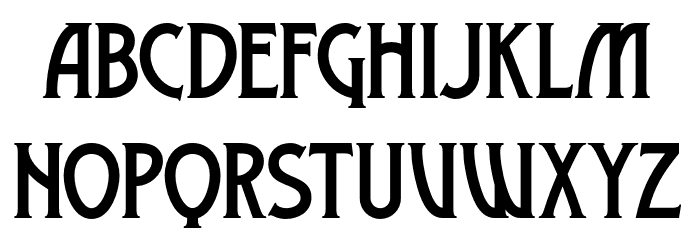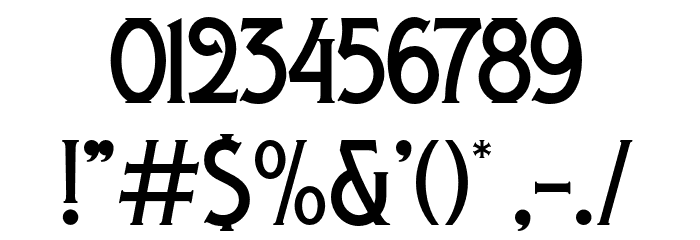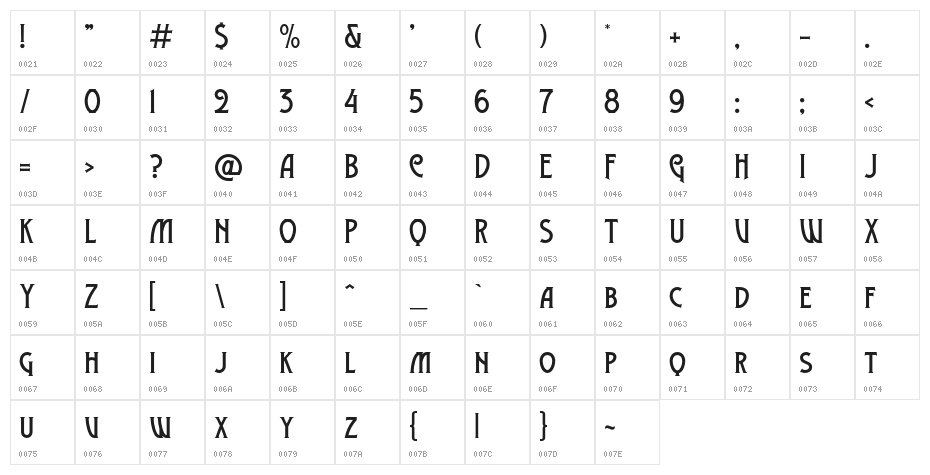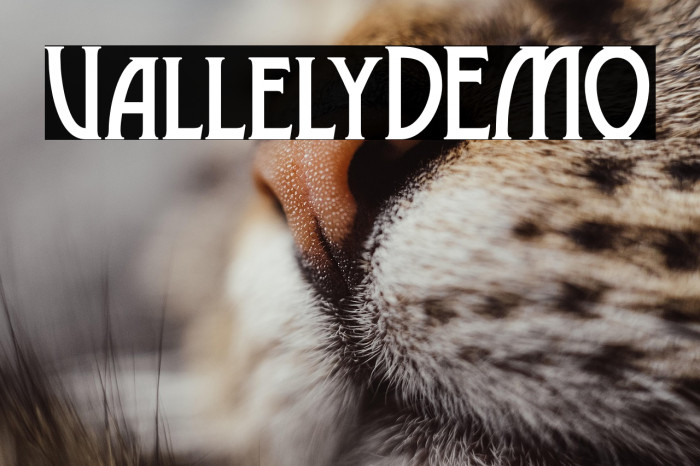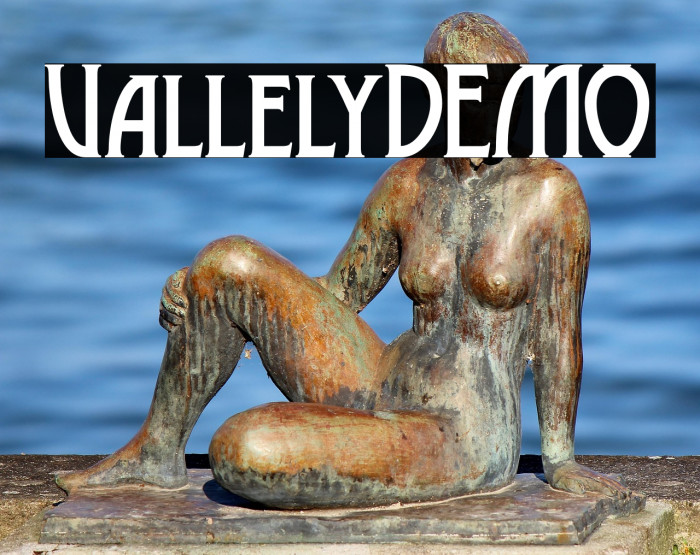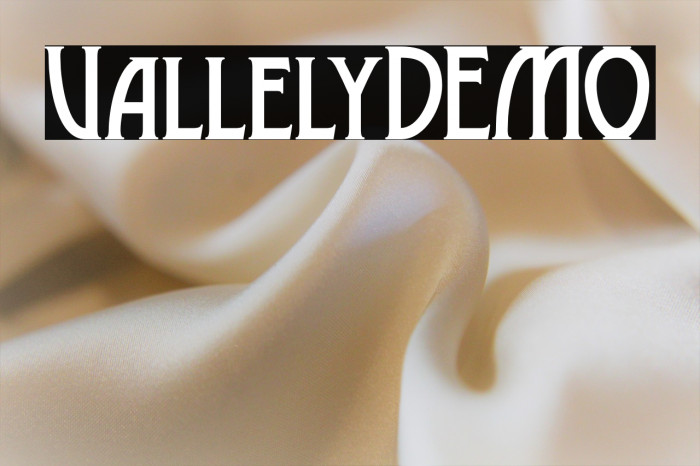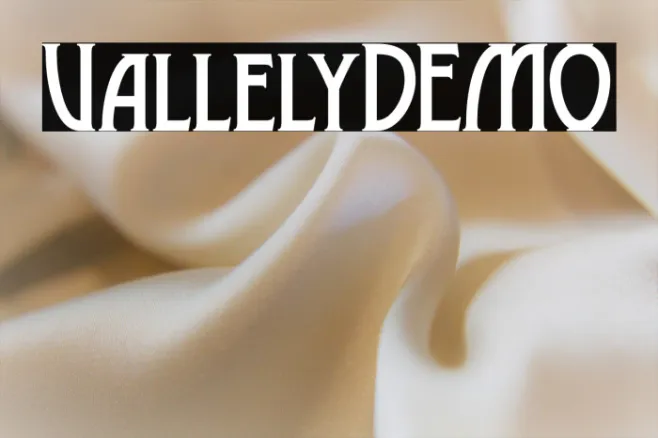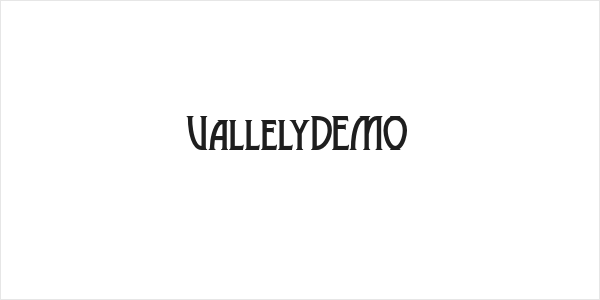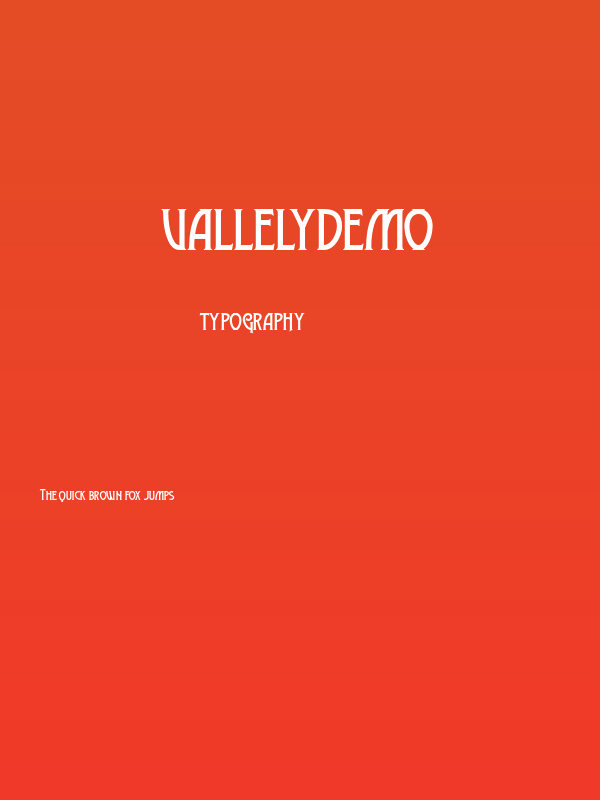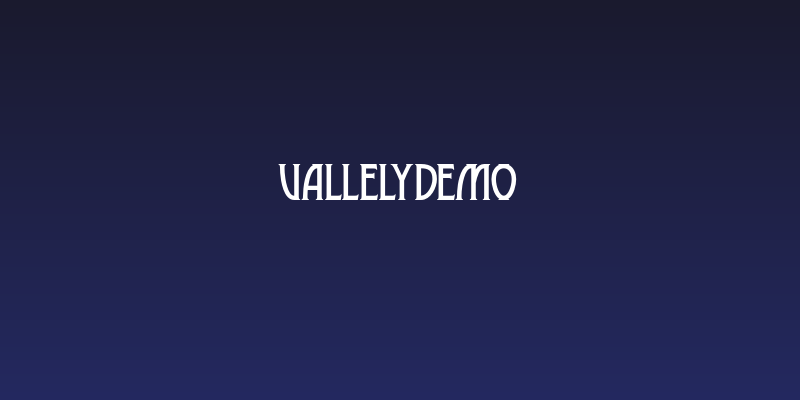
VallelyDEMO Font
This font features a distinctive and bold style with a medieval or gothic influence. The uppercase letters are characterized by sharp, angular lines and unique curves, giving them a dramatic and eye-catching appearance. The lowercase letters maintain a consistent style, complementing the uppercase with similar angular features. The numerals are clear and bold, ensuring readability while maintaining the overall aesthetic. Special characters are designed with the same attention to detail, making them suitable for a variety of uses. The font's unique style makes it ideal for projects that require a touch of historical or fantasy flair.
A bold, gothic-inspired font with sharp, angular lines and dramatic curves.
- Proposed Projects: Ideal for fantasy book covers, medieval-themed event posters, video game titles, and branding for historical or fantasy-related products.
- Overall Style: Gothic, Medieval, Decorative